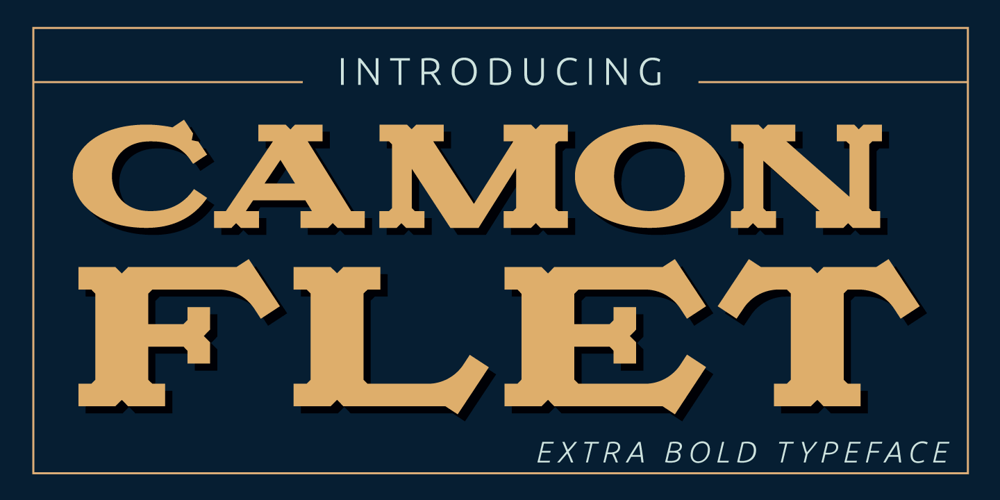
Camonflet Font Family was designed by Tanveer Qureshi and published by TanveerType. Camonflet contains 1 styles and family package options. This unique set of letters designed in the style of serif. It’s cutting edge and expanded looks carefully designed to feel like classic lettering. It’s easy to read and cover a small area to utilize.